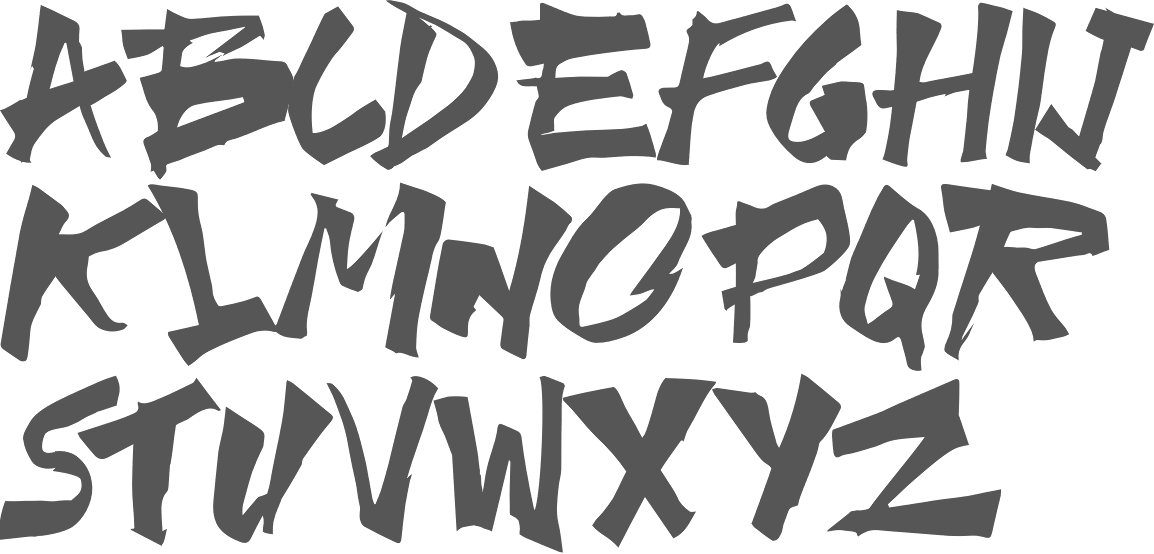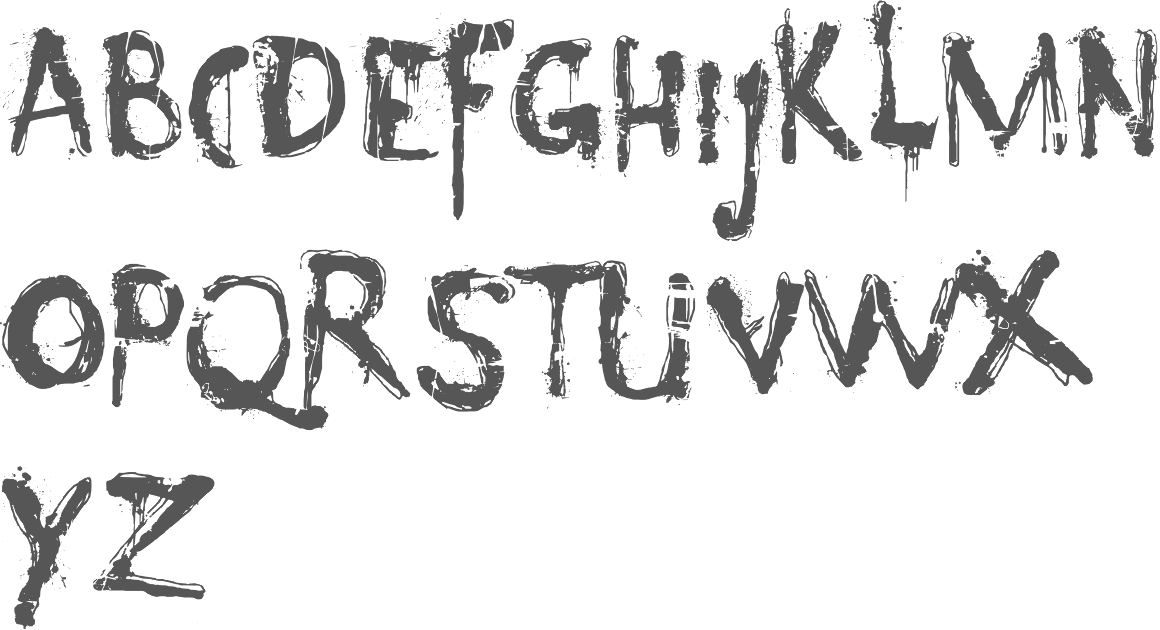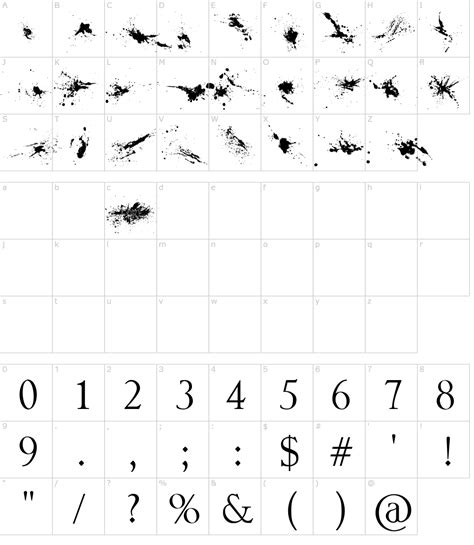
What Are Splatter Fonts?
Splatter fonts are a type of typeface that is unique and quickly gaining popularity. They are fun and edgy, perfect for adding a bold statement to your designs. Splatter fonts come in a variety of styles, from thick and bold to thin and delicate. The characteristics of splatter fonts include a variety of shapes and sizes, often with a rough and textured appearance. The majority of the splatter fonts are made up of a combination of letters and shapes that are stained or splattered, giving them a distinct and unique style.
Splatter fonts are perfect for adding a bit of attitude to your designs. They can be used to create a striking visual impact and make a statement. Whether you are designing logos, posters, flyers, or even websites, splatter fonts can make an impact. They can also be used to create eye-catching titles, headlines, and subheadings.
How to Use Splatter Fonts Effectively
Splatter fonts can be a great way to make your designs stand out. However, it is important to use them correctly. When using splatter fonts, it is best to keep the design simple and use the fonts sparingly. Too many splatter fonts can make a design look cluttered and overwhelming. It is best to limit the number of splatter fonts used in a design and to use them to emphasize certain words or phrases.
It is also important to use splatter fonts in the right context. For example, splatter fonts are not ideal for body text and should be used sparingly in this context. Splatter fonts should be used mainly for titles and headlines. They are also ideal for adding a bit of personality to logos, posters, flyers, and other designs.
Tips for Choosing the Best Splatter Fonts
When choosing splatter fonts for your designs, it is important to consider the context in which they will be used. For example, if you are designing a logo for a punk rock band, you may want to choose bold and edgy splatter fonts. If you are designing a logo for a health and wellness company, you may want to choose a more delicate and subtle splatter font. It is also important to consider the legibility of the font. Some splatter fonts can be difficult to read, so it is important to choose one that is easy to read and understand.
When choosing splatter fonts, it is also important to consider the size of the font. Splatter fonts are often bold and large, so it is important to choose a font size that is appropriate for the context in which it will be used. Too large of a splatter font can be overwhelming and make the design look cluttered, while too small of a font can be difficult to read.
Splatter fonts are a fun and unique typeface that can add a bold statement to your designs. When used correctly, they can be a great way to make your designs stand out. However, it is important to consider the context in which they will be used and choose a font size that is appropriate. It is also important to limit the number of splatter fonts used in a design to avoid making the design look cluttered and overwhelming.